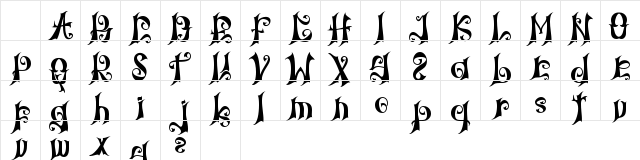
Complete Black Silent Regular glyph index. Displaying only characters natively supported by Black Silent Regular font.
Black Silent is a composed and adaptable typeface that performs quietly and consistently across a wide range of design contexts.